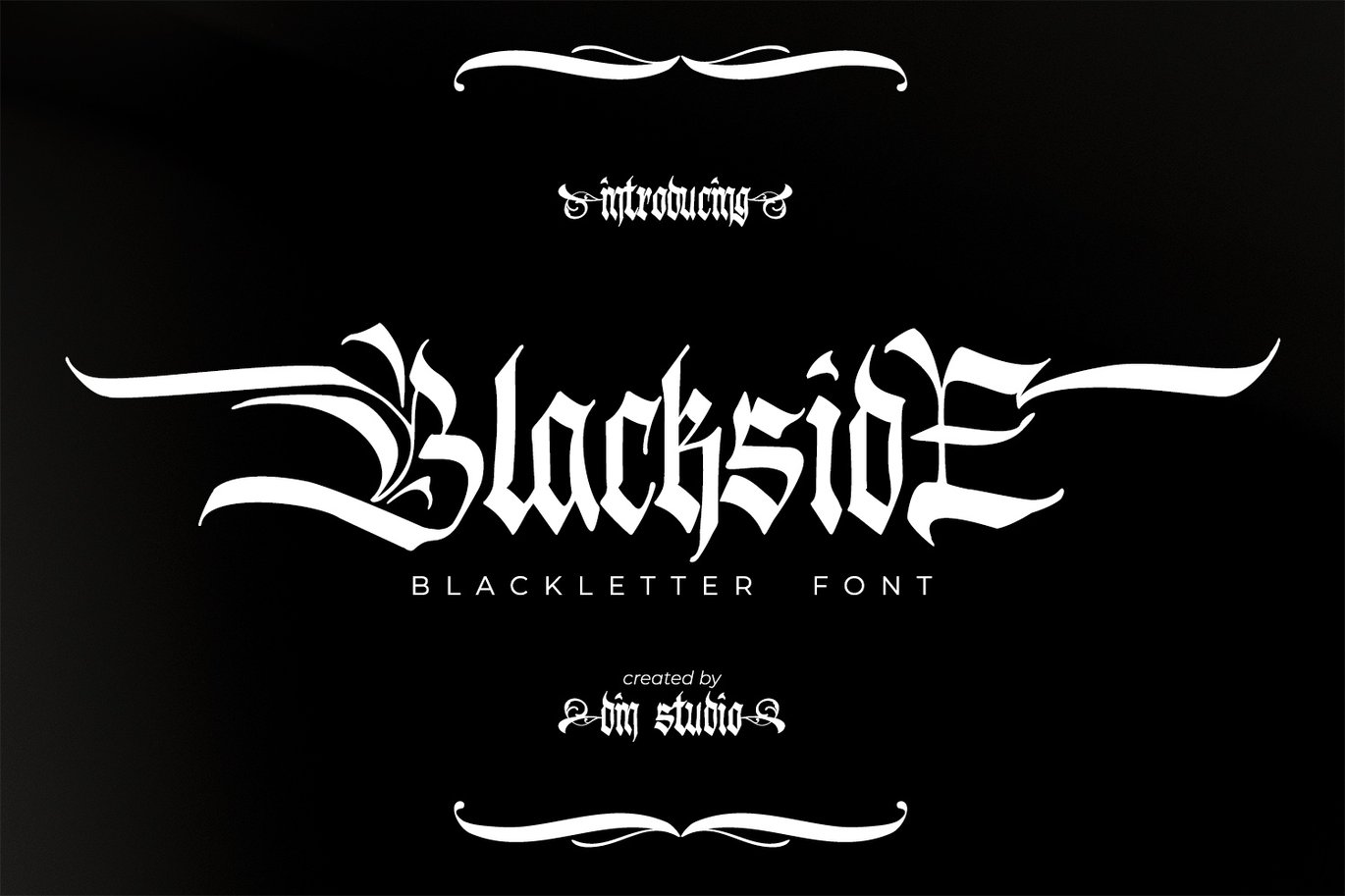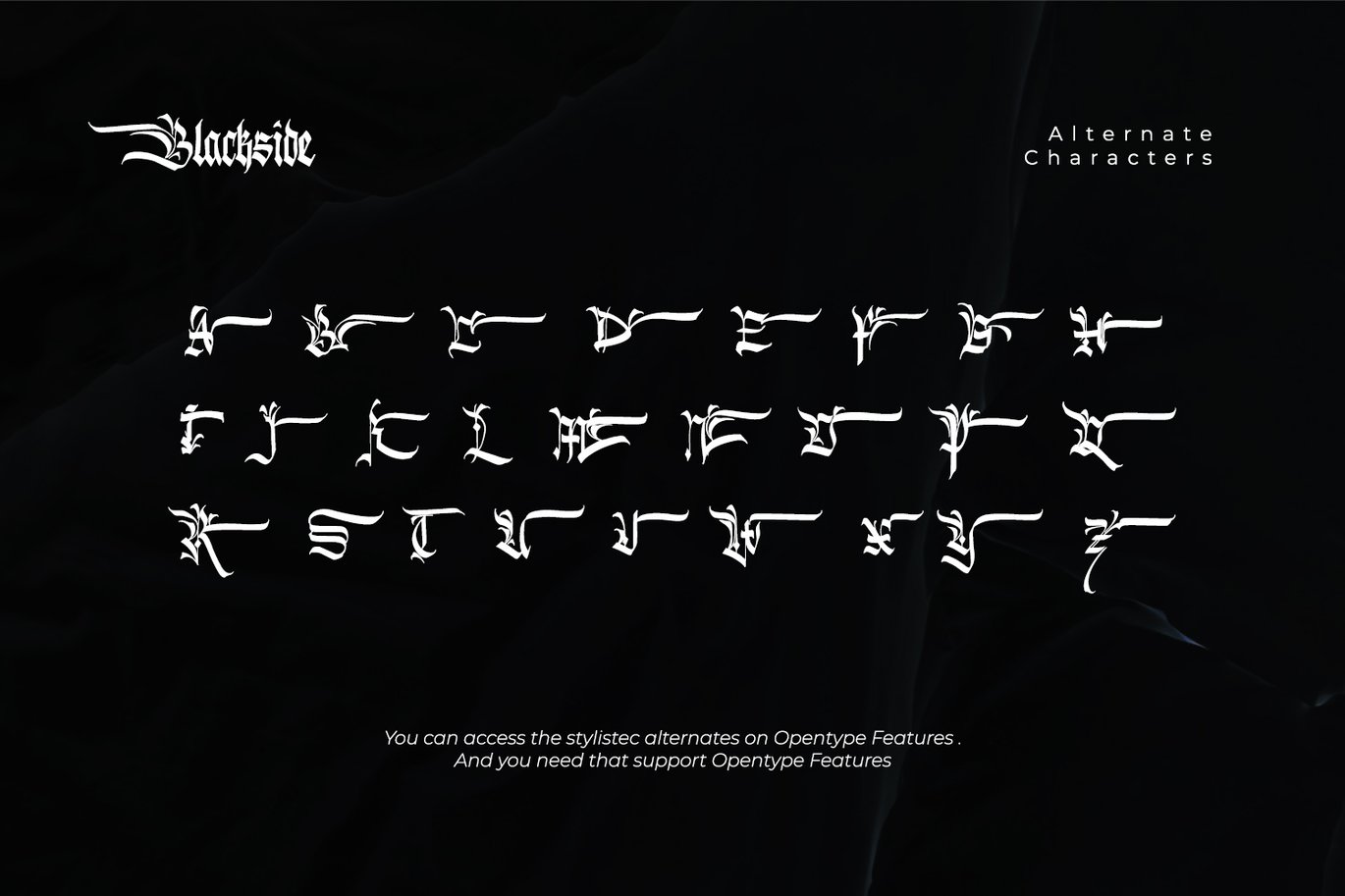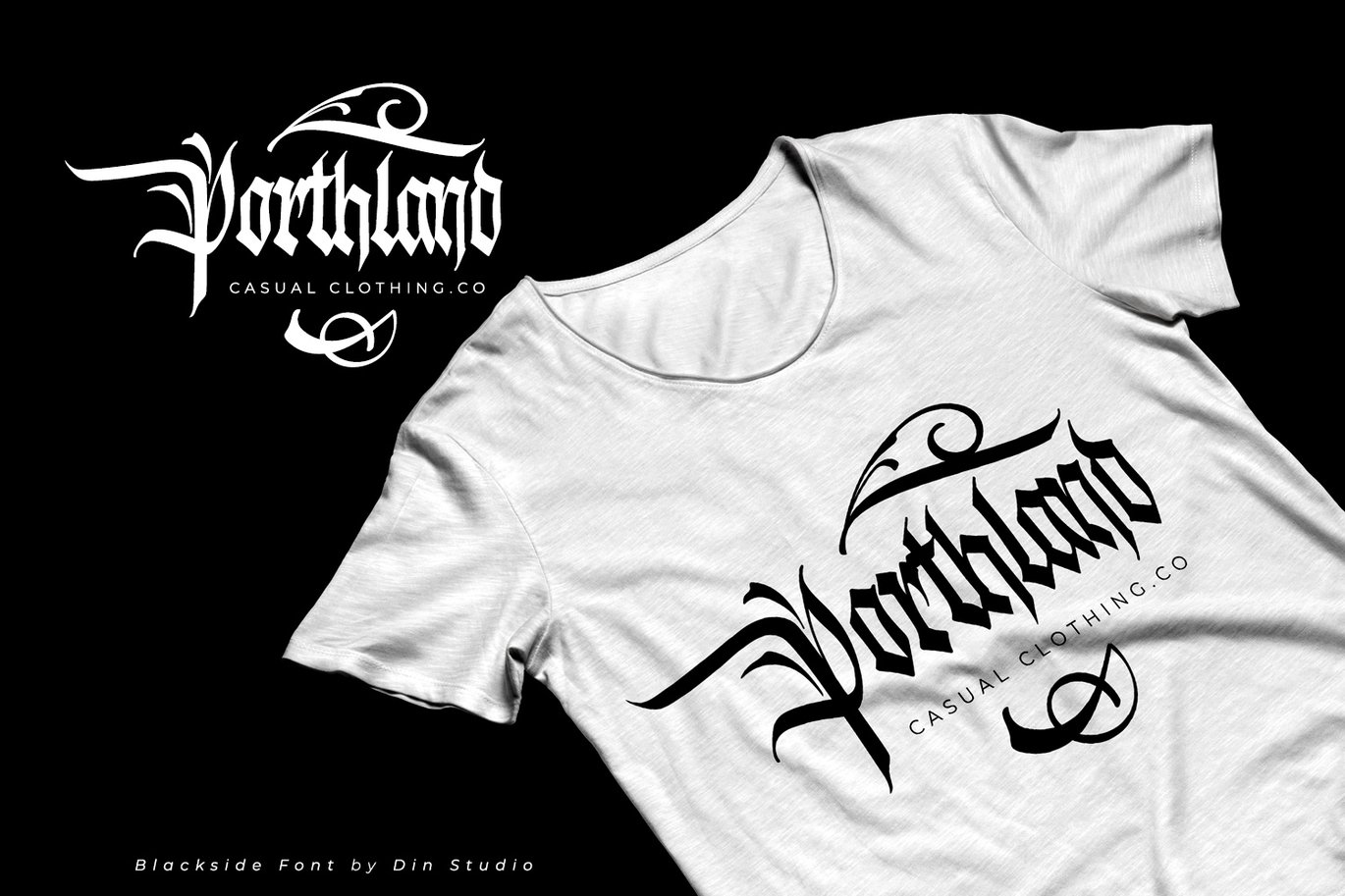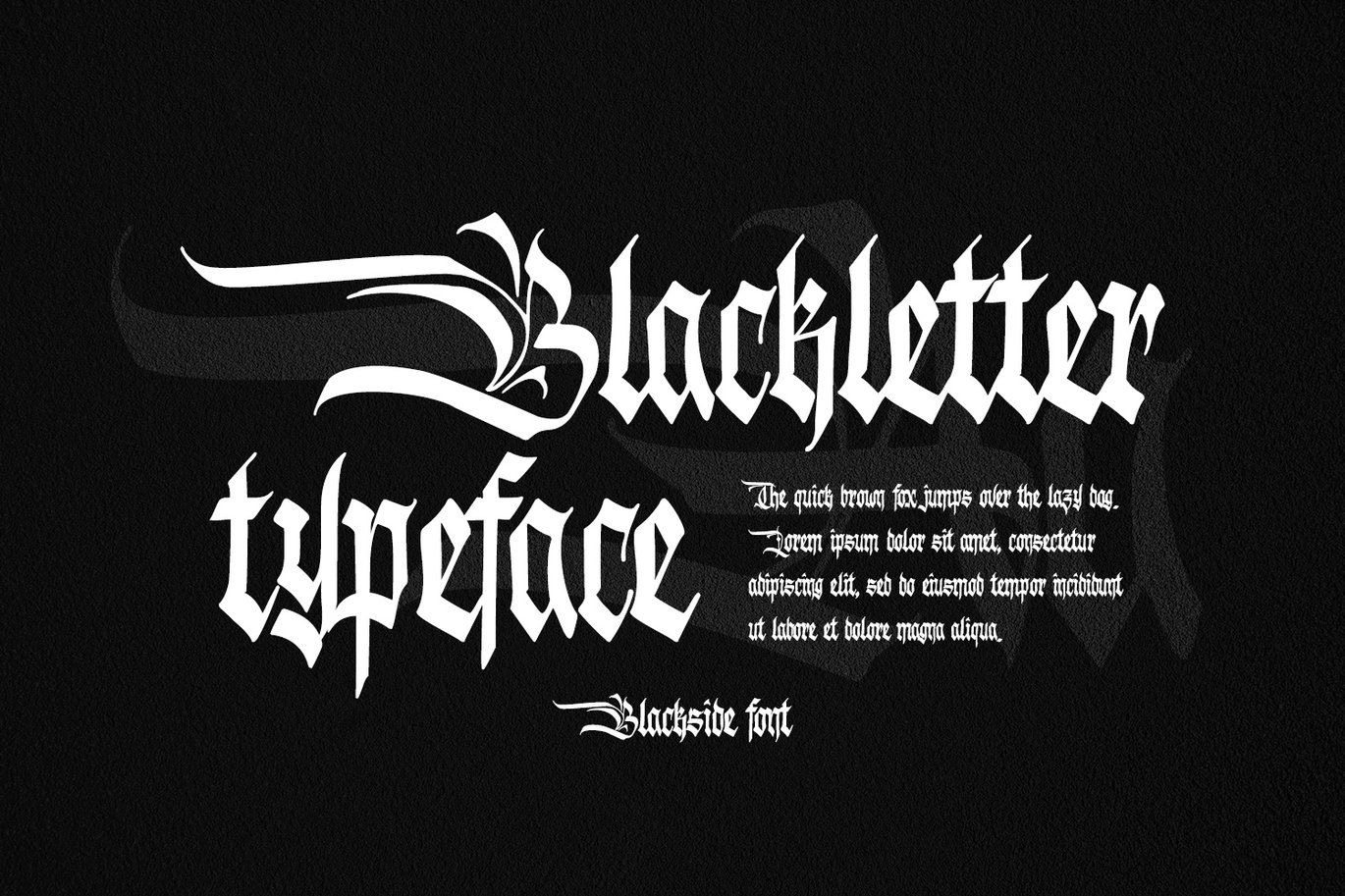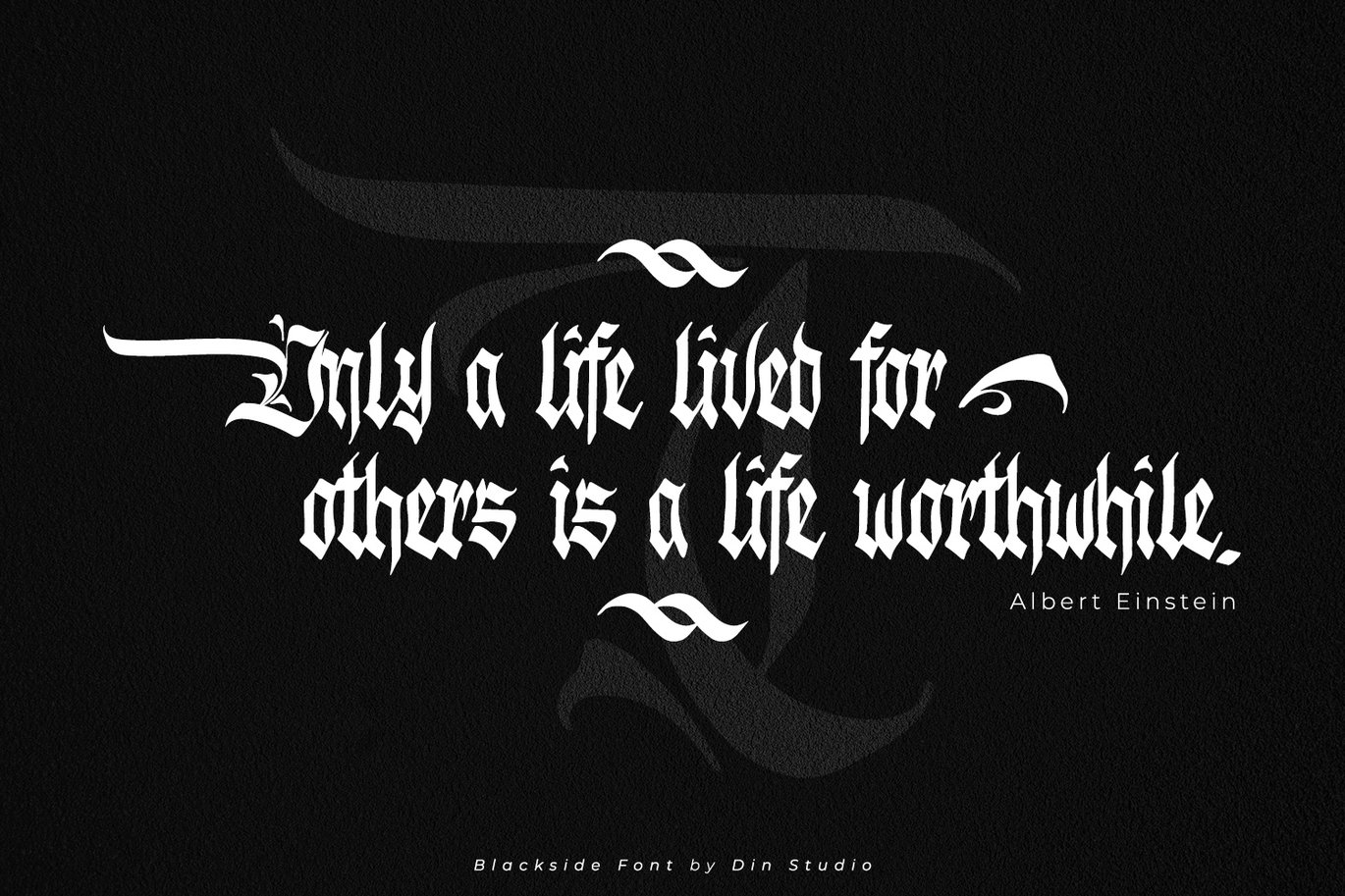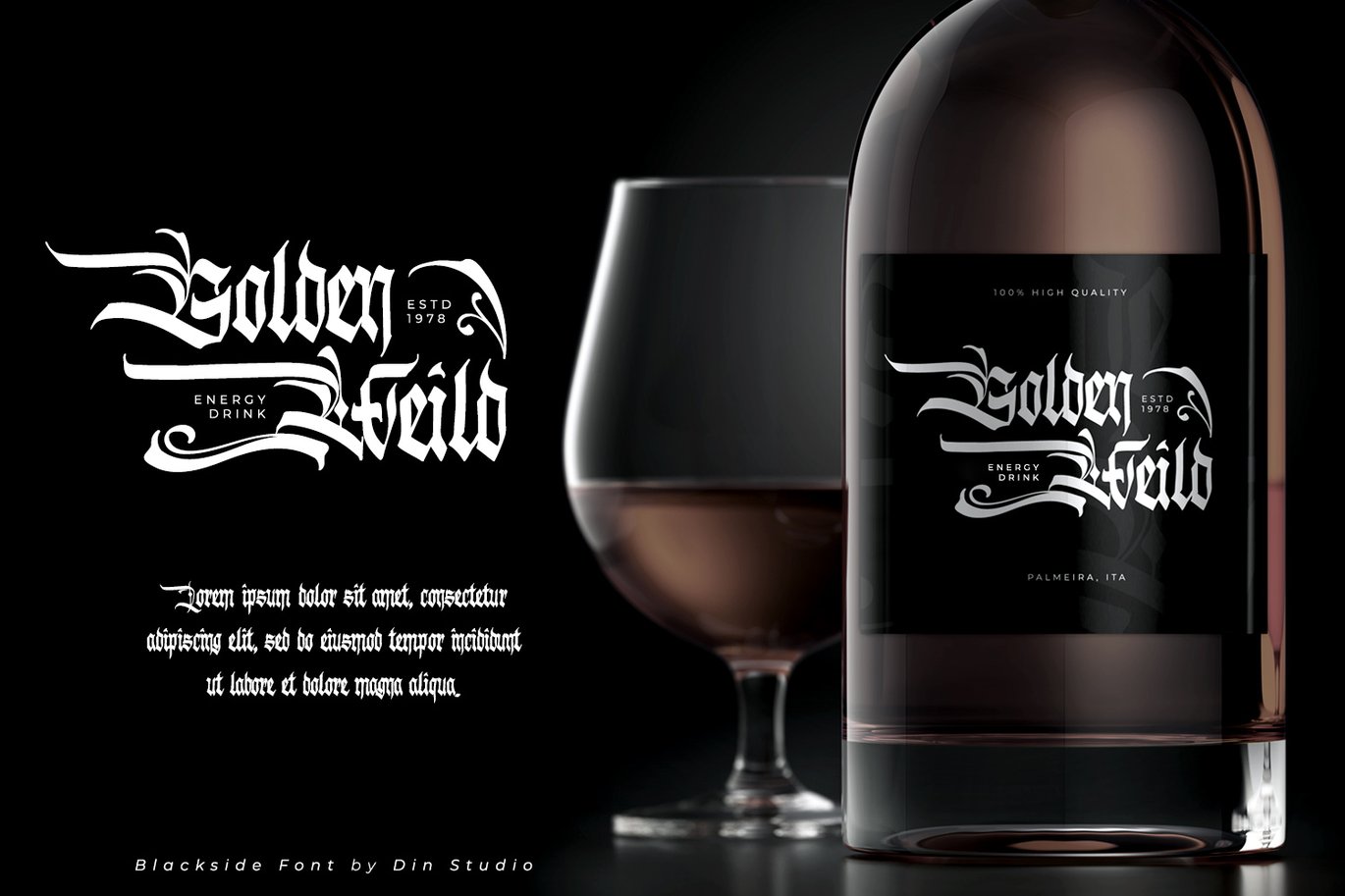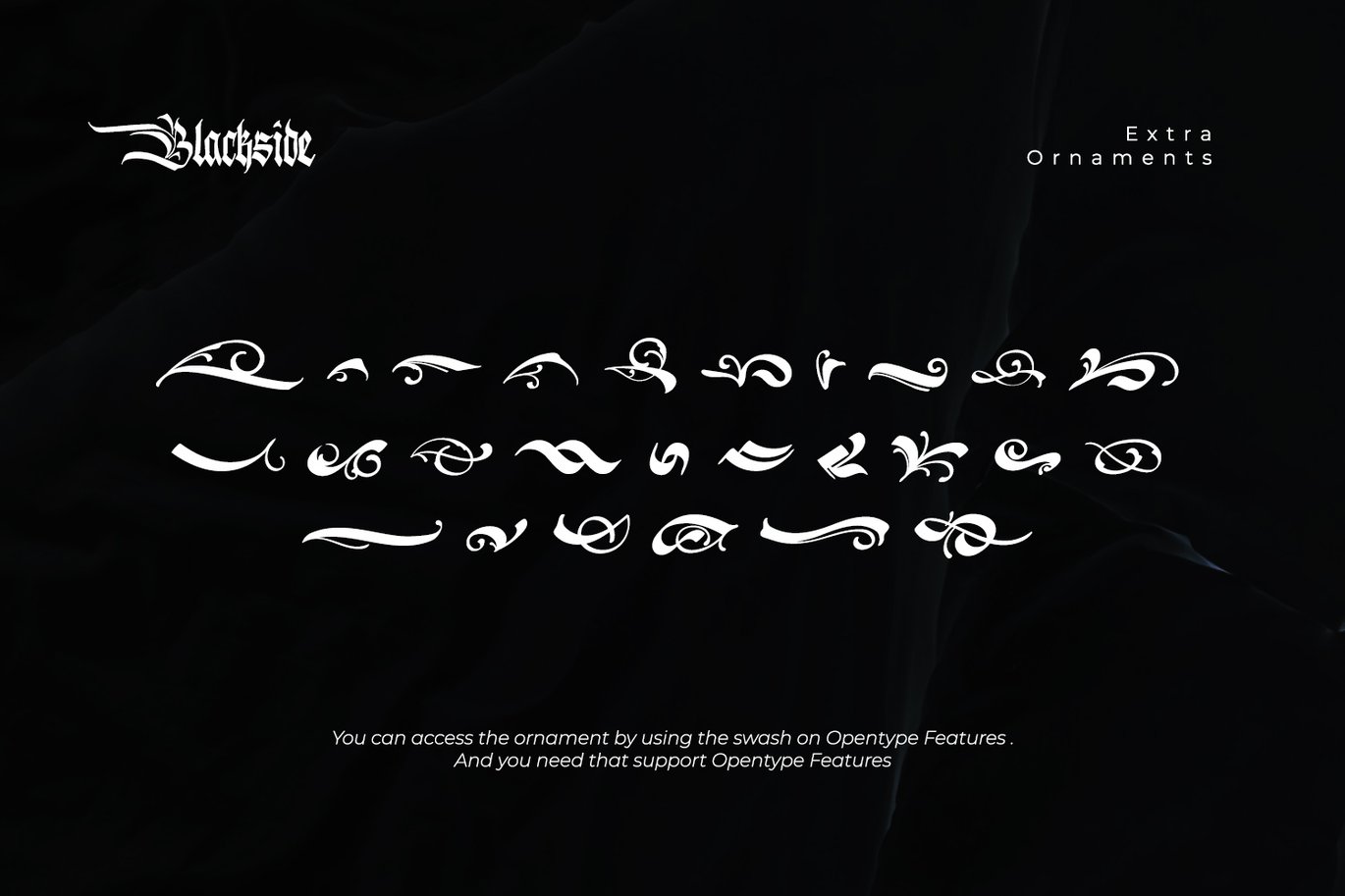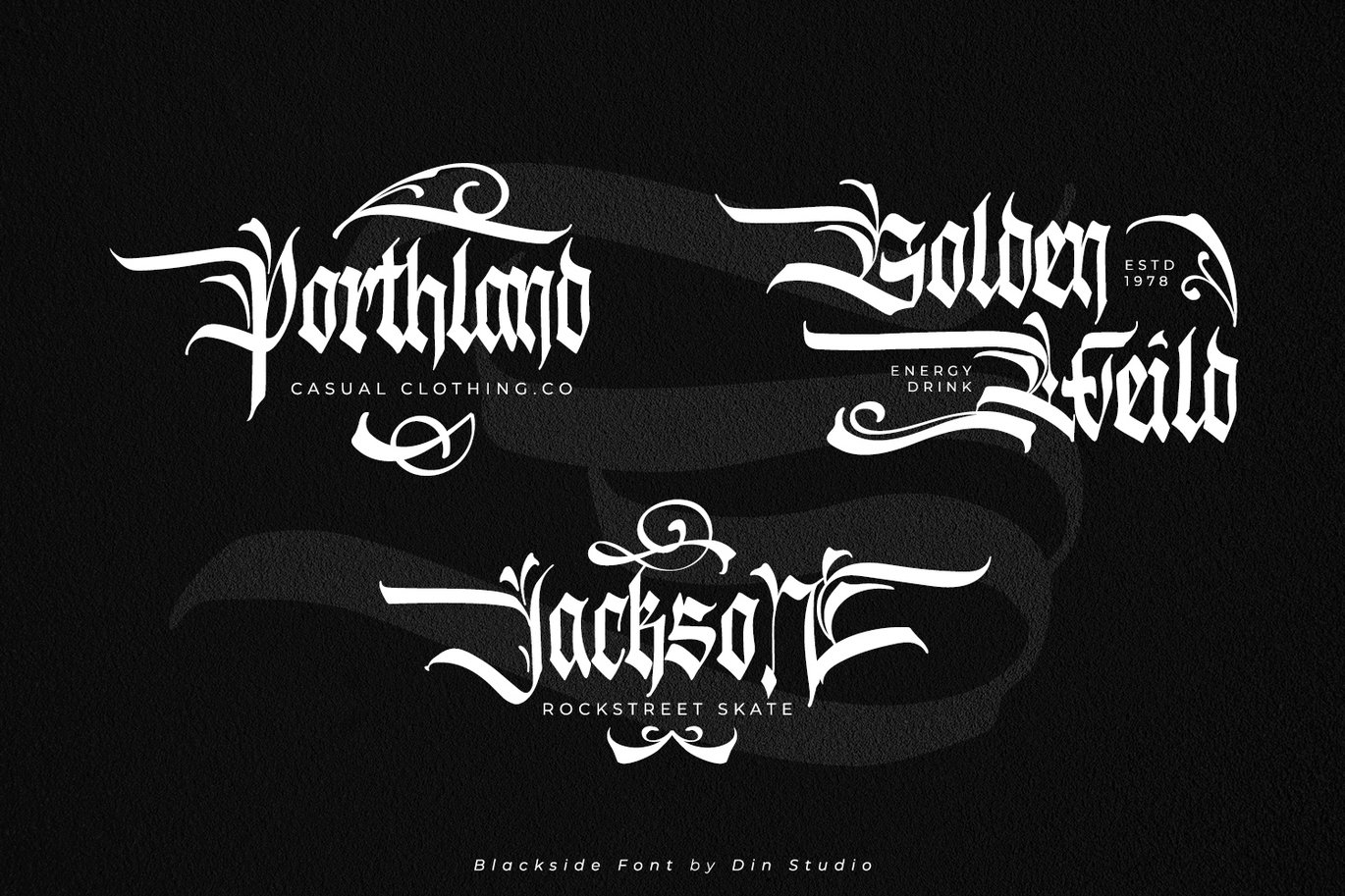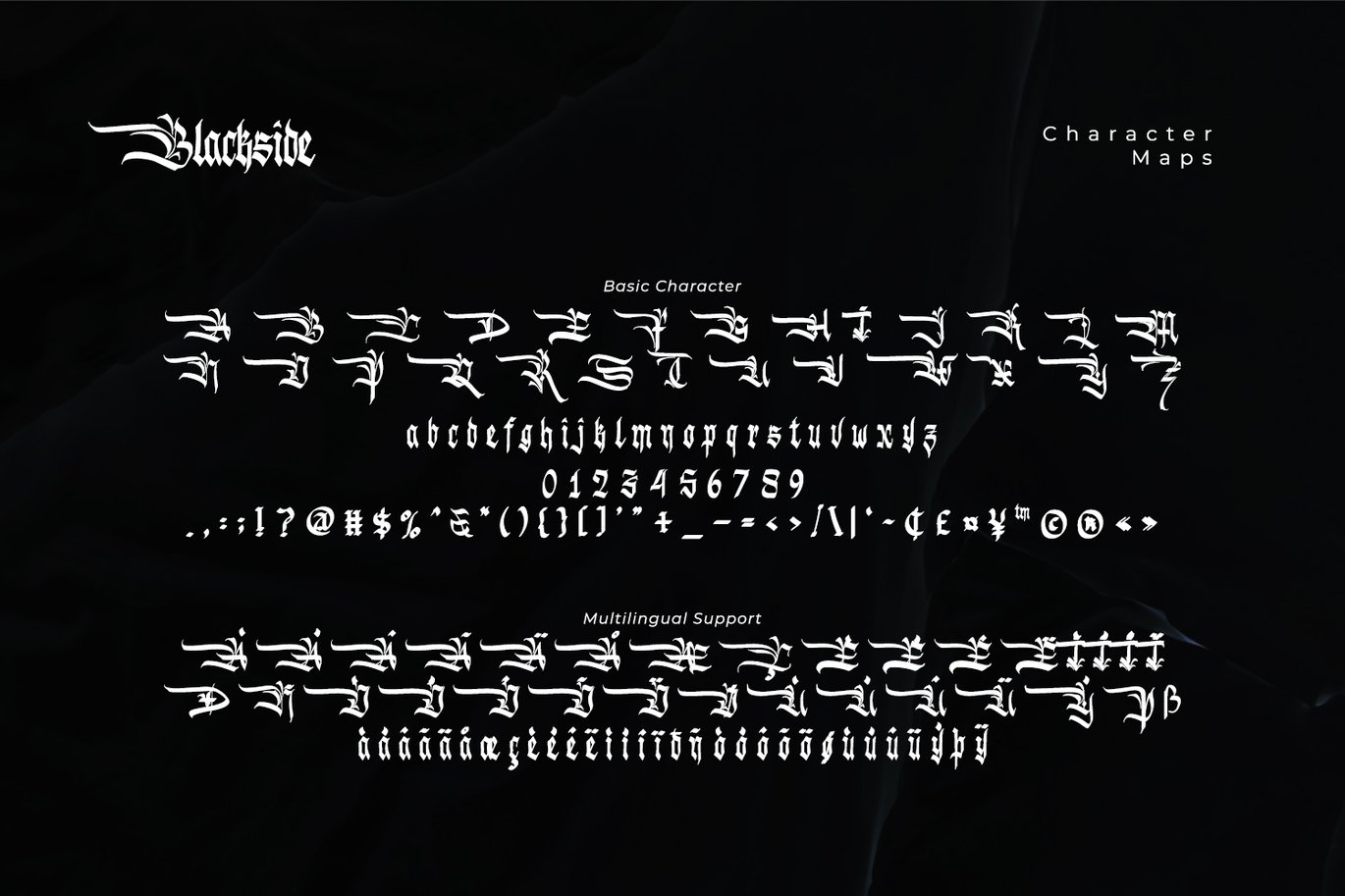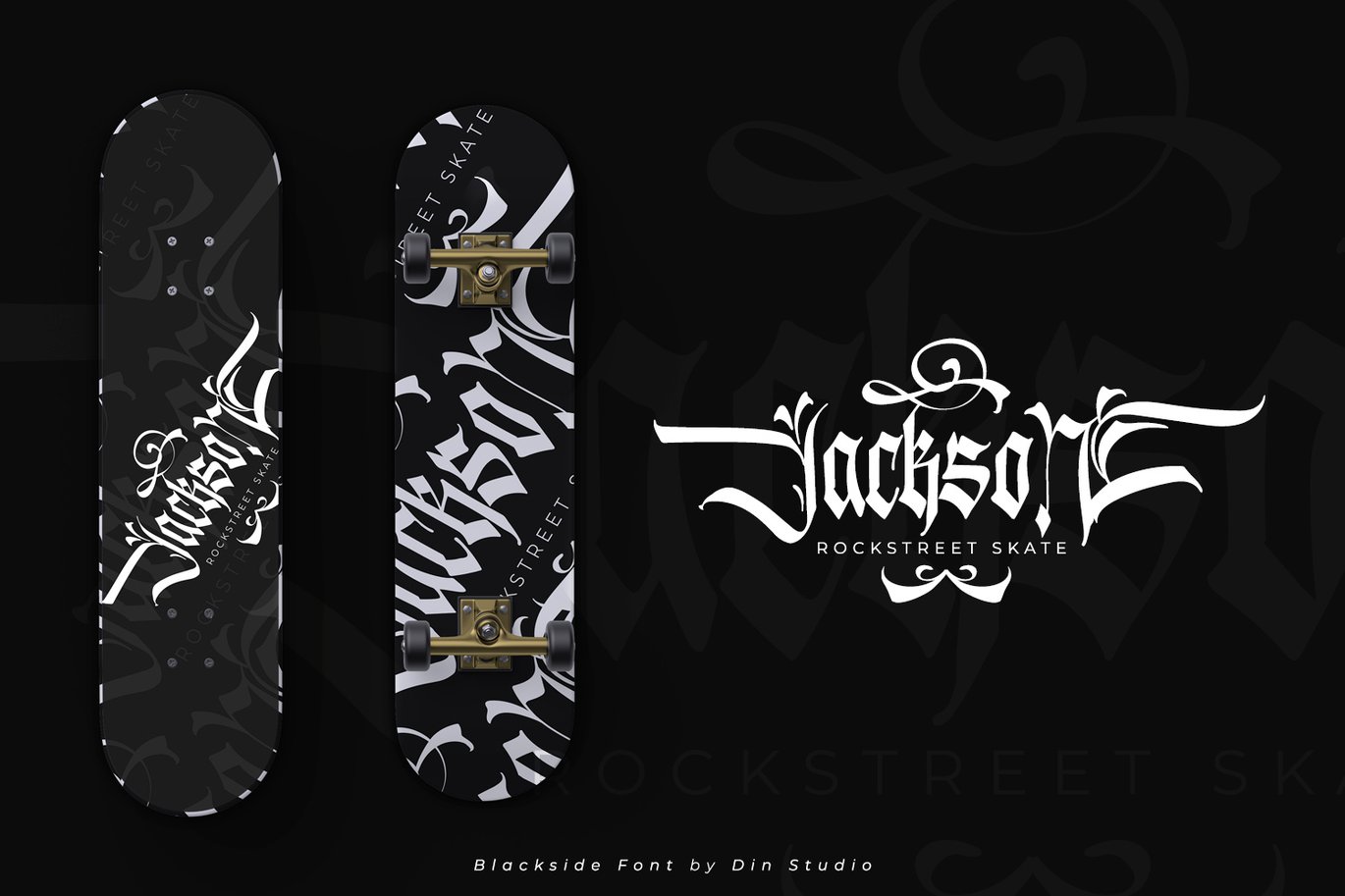
Blackside-Blackletter Font
Blackside is a bold and authentic blackletter font. The font is suitable for any branding project like logo, t-shirt printing and many more. Outstanding in a wide range of contexts.